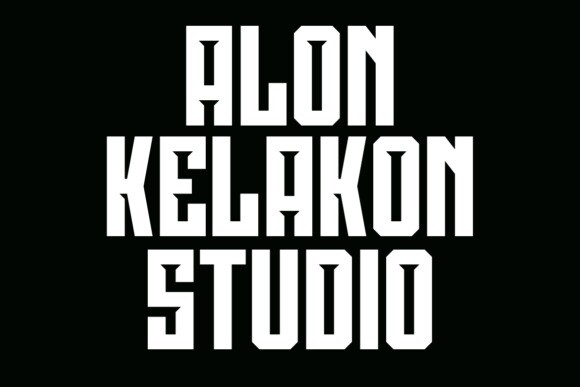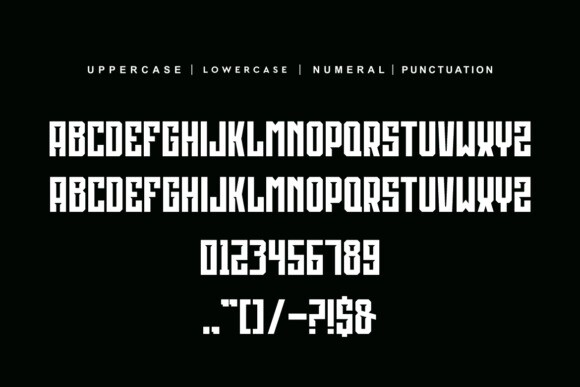
Black Roger Font
Black Roger Font is a bold and assertive serif font. No matter the topic, this font will be an incredible asset to your fonts’ library, as it has the potential to elevate any creation.